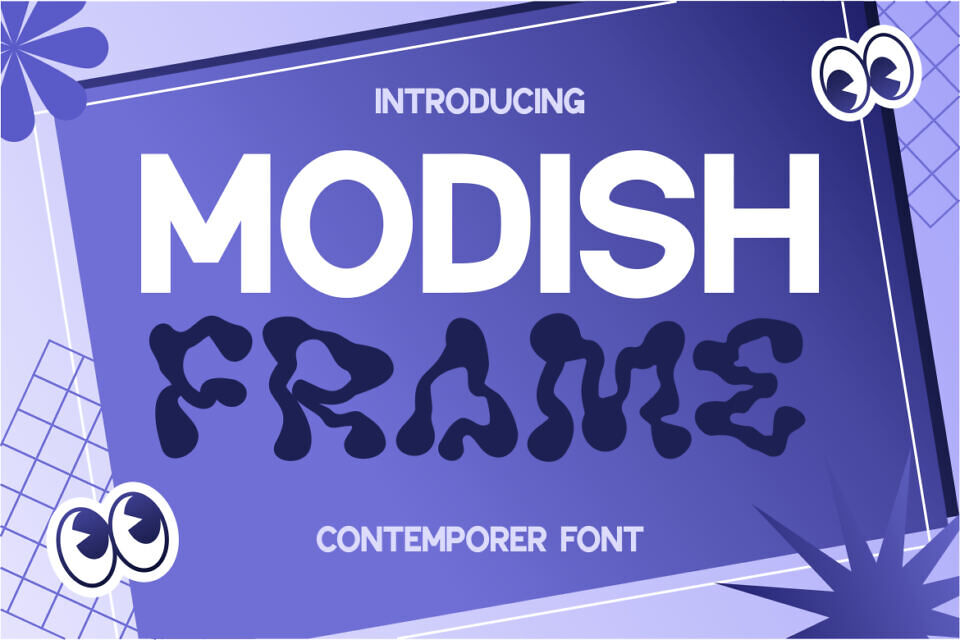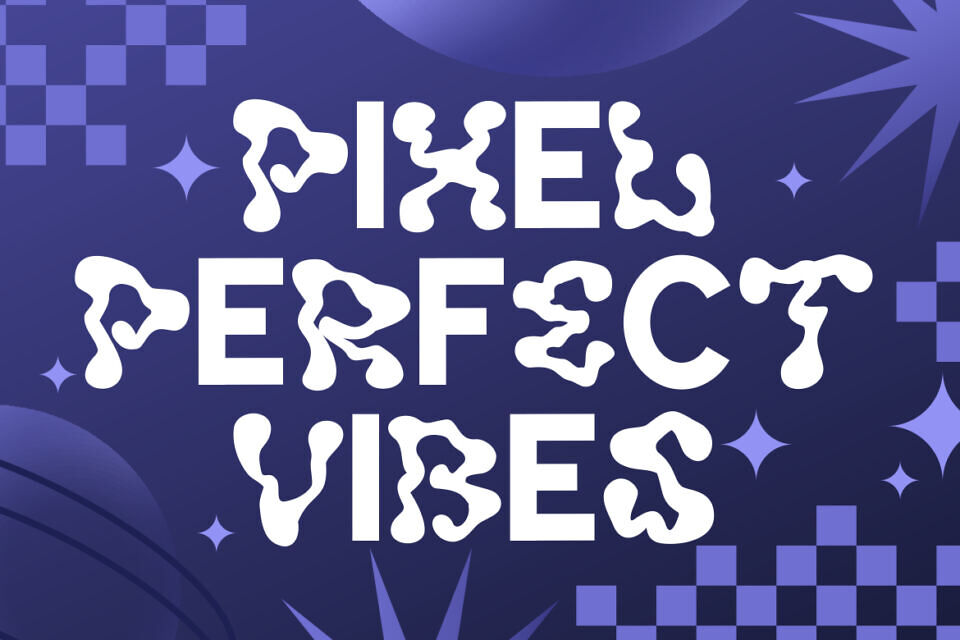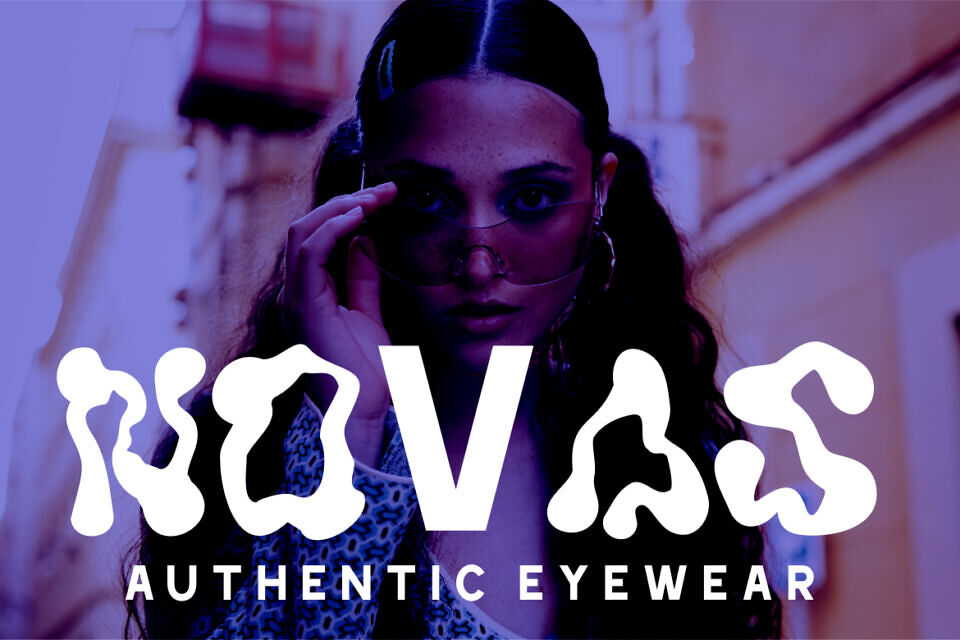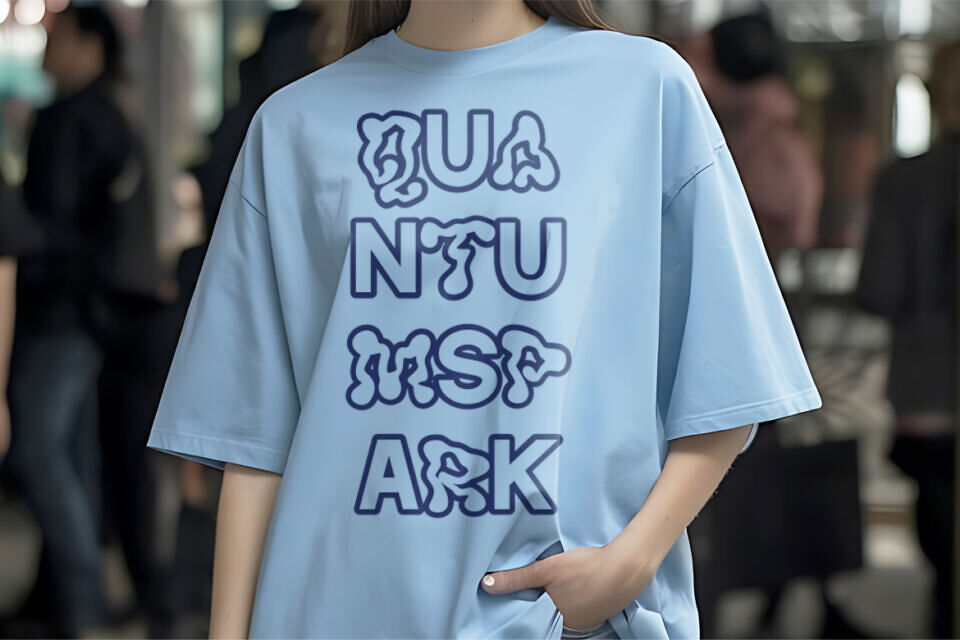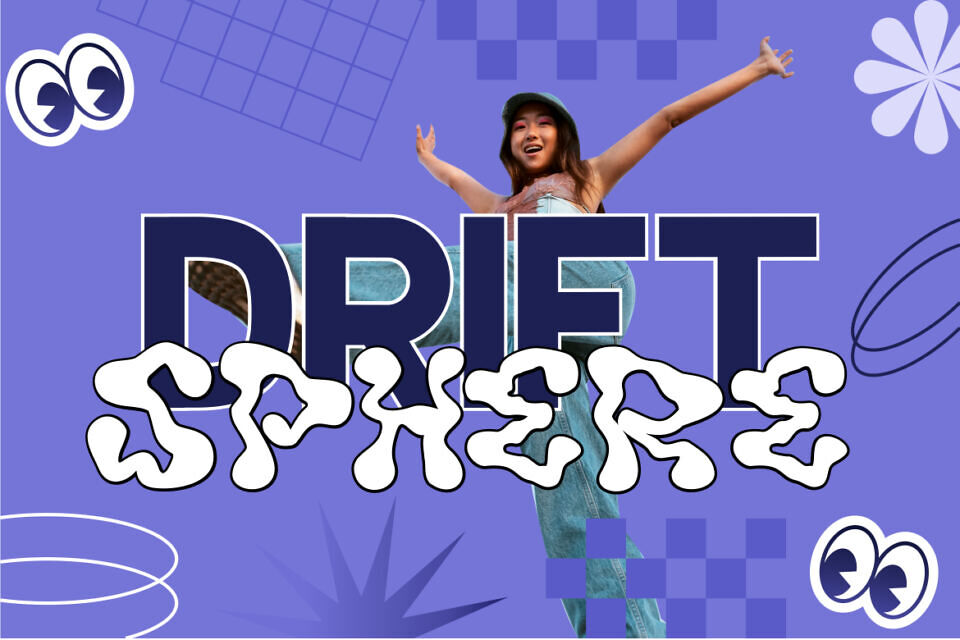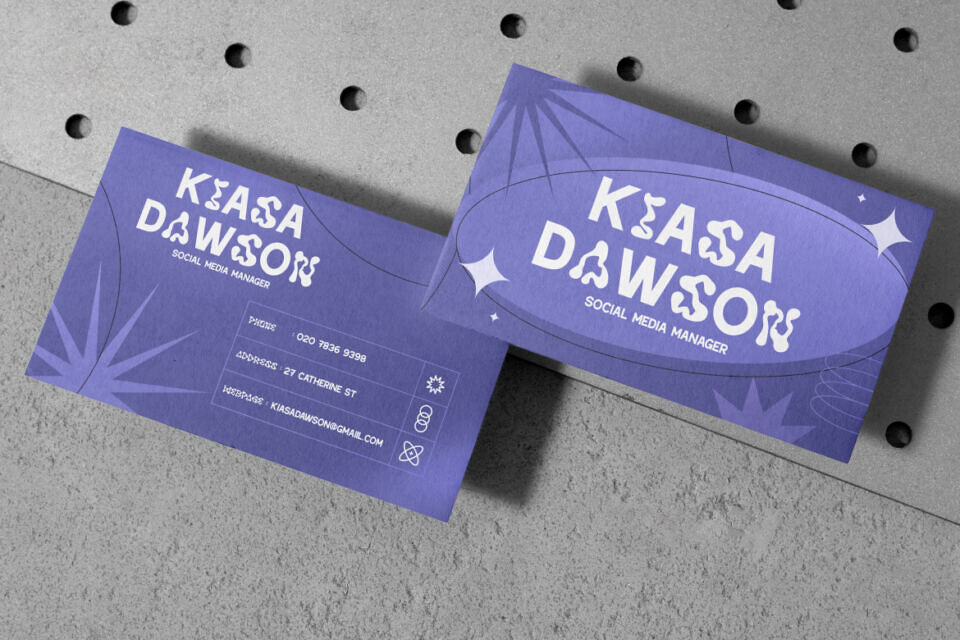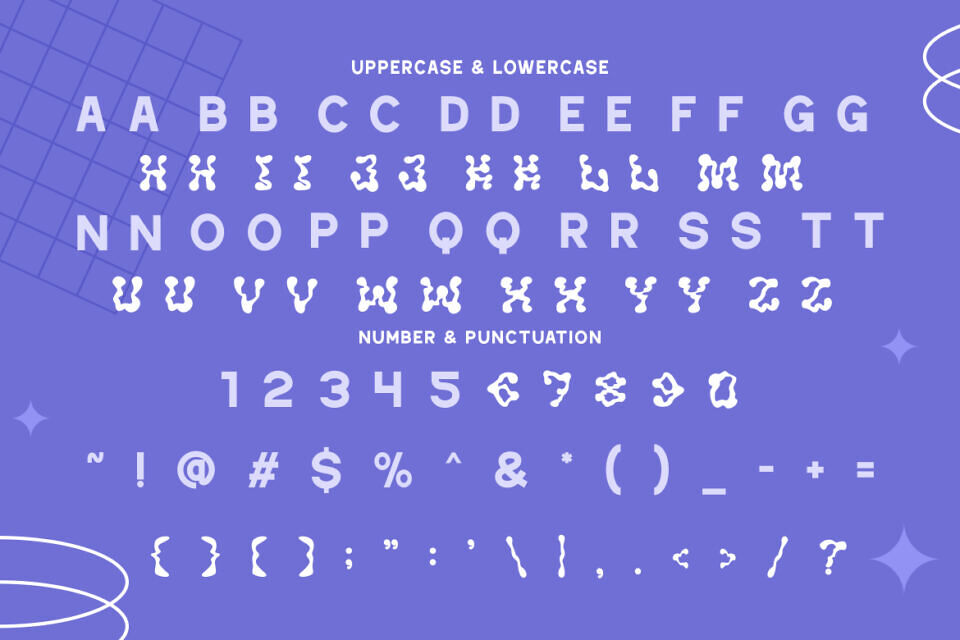
Modish Frame One Font
Modish Frame is a one-of-a-kind contemporary duo display font that effortlessly fuses futuristic oddity with expressive design. Each letterform features fluid, organic shapes that resemble melting pixels or soft plastic morphing into bold silhouettes.
This abstract letter anatomy captures attention and challenges conventional typographic rules, making it a strong visual identity tool for progressive branding, trendsetting packaging, or youth-focused campaigns. Its balance between legibility and expressive abstraction makes it ideal for creators looking to break the mold.
This font thrives in dynamic applications—from editorial layouts and bold posters to experimental logos and lifestyle merchandise.